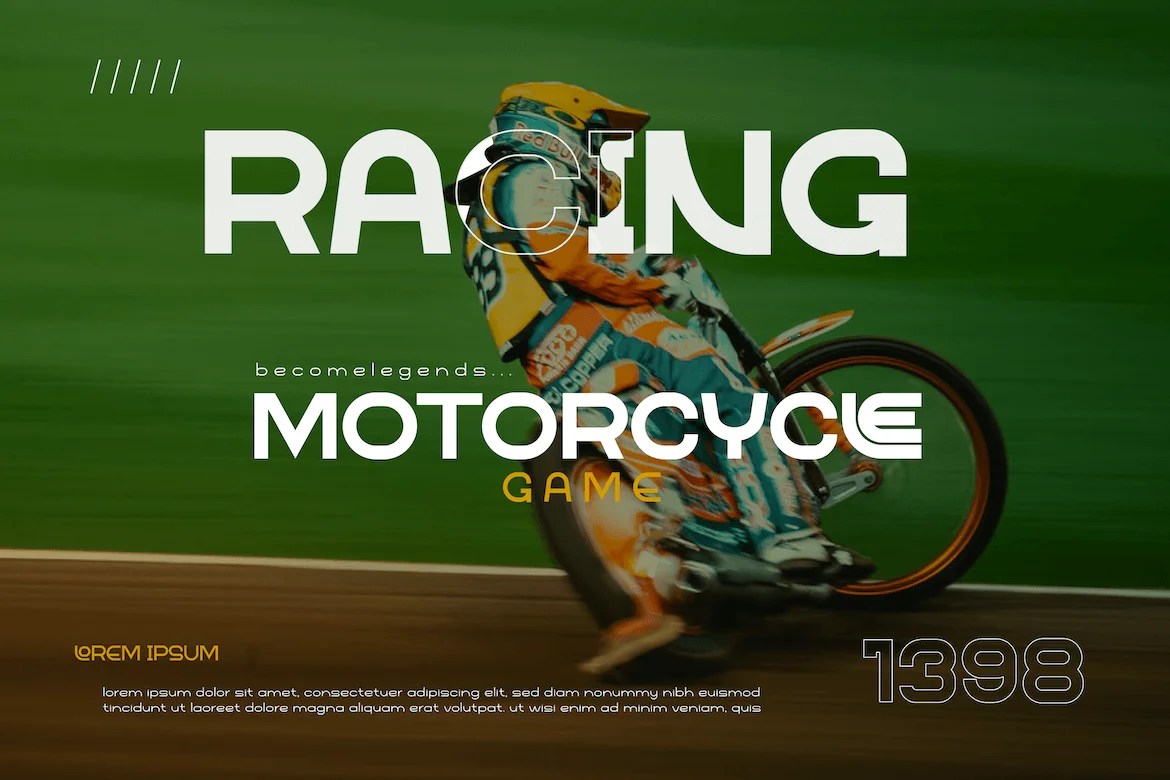
Good fonts for sports branding need to survive very different jobs at once: a bold logotype on a jersey, small print on a program cover, and a full headline on a stadium banner. Here are seven Twinletter sans serif families built around exactly that range for sports branding, each with a slightly different personality based on how Twinletter itself describes them.
Sports typography carries real weight for how fans perceive a team or event — font choice is consistently described as a factor that can boost fan engagement and even influence merchandise sales in professional sports branding guides. Whether it’s a jersey number, a stadium banner, or an esports tournament graphic, fonts for sports branding need to read clearly at both huge and tiny scale, which is exactly why a bold sans serif family — rather than a single fixed-weight display font — tends to work best across an entire brand system.
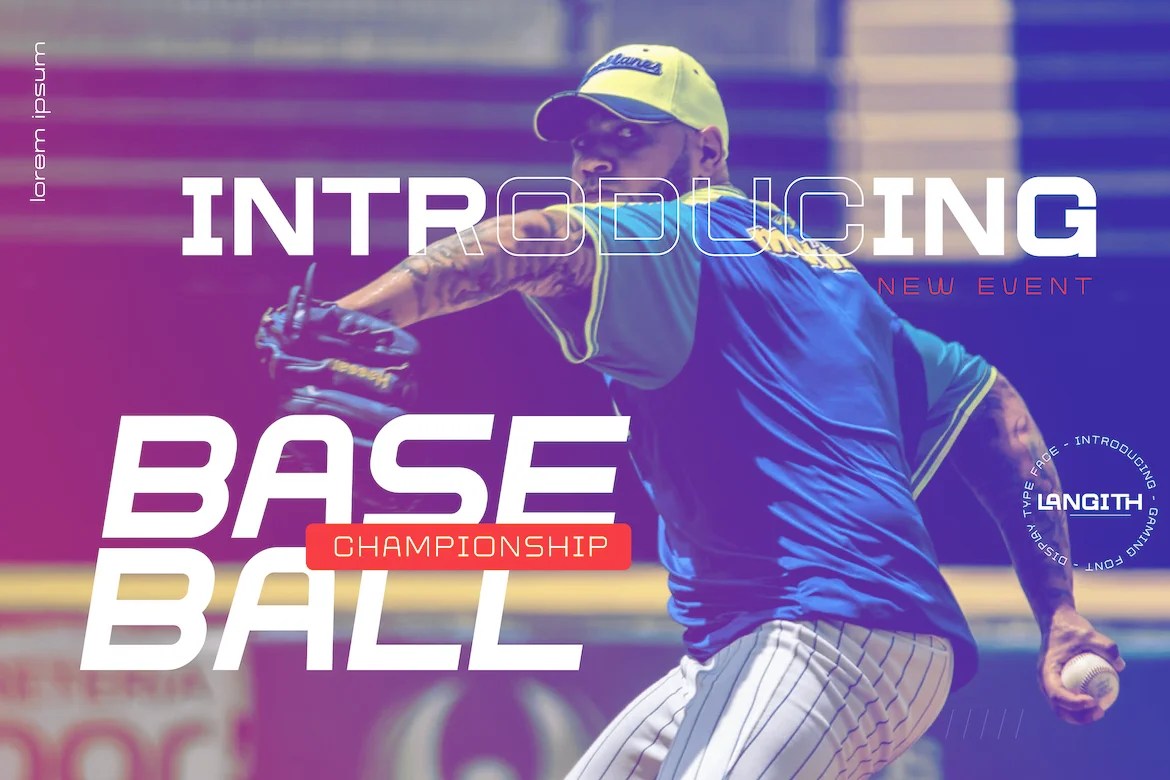
Since these fonts for sports branding all come from the same product generation, here’s how Twinletter positions each one:
Bequest — positioned as a broad, versatile family across “games, sporting events, branding, banners, posters, movie titles, food and beverage, technology,” making it one of the most general-purpose options on this list.
Telone — described as “relaxed, nice and comfortable to read” with an “exotic and fantastic impression,” suited to sports branding that wants a friendlier, more approachable tone.
Gasted — built around “heroism” and positioned for “modern fonts for digital and robotic needs,” an elegant and powerful pick for esports or tech-leaning sports branding.
Thole — described as “very elegant and clean” with a “graceful” and strong impression, explicitly built to work for both feminine and masculine-leaning sports themes.
Langith — described as “very simple and clean” with genuine “artistic value” in its letter spacing and corners, suited to a more refined, design-forward sports identity.
Stigo — described as “simple and clean” with curves and thickness “designed in detail,” positioned as a strengthening, beautifying choice for wordmarks.
Gamy — described with a “sharp character” on its alternate capitals, explicitly “manly and mighty,” the boldest and most aggressive-leaning option in the group.
Beyond those individual leanings, all seven fonts for sports branding share the same broader use case and feature set. Twinletter positions all of them for games, sporting events, branding, banners, posters, movie titles, book titles, quotes, clothing, and logotypes — each one shipping as a complimentary font family covering titles, subtitles, and body sentence text, rather than a single fixed style.
Which of these seven is best for an esports or gaming brand specifically? Gasted leans most directly into a modern, tech-forward feel given its “digital and robotic” positioning, though Gamy’s sharper, bolder character is also a common fit among fonts for sports branding that want more aggression.
Can these fonts be used for anything besides sports branding? Yes — all seven are also positioned for movie titles, book titles, quotes, clothing, and general logotype design, alongside sports and gaming use.
Do these fonts support languages other than English? Yes, all seven fonts for sports branding include multilingual support across 19 European languages, making them usable for teams and brands operating outside English-only markets.